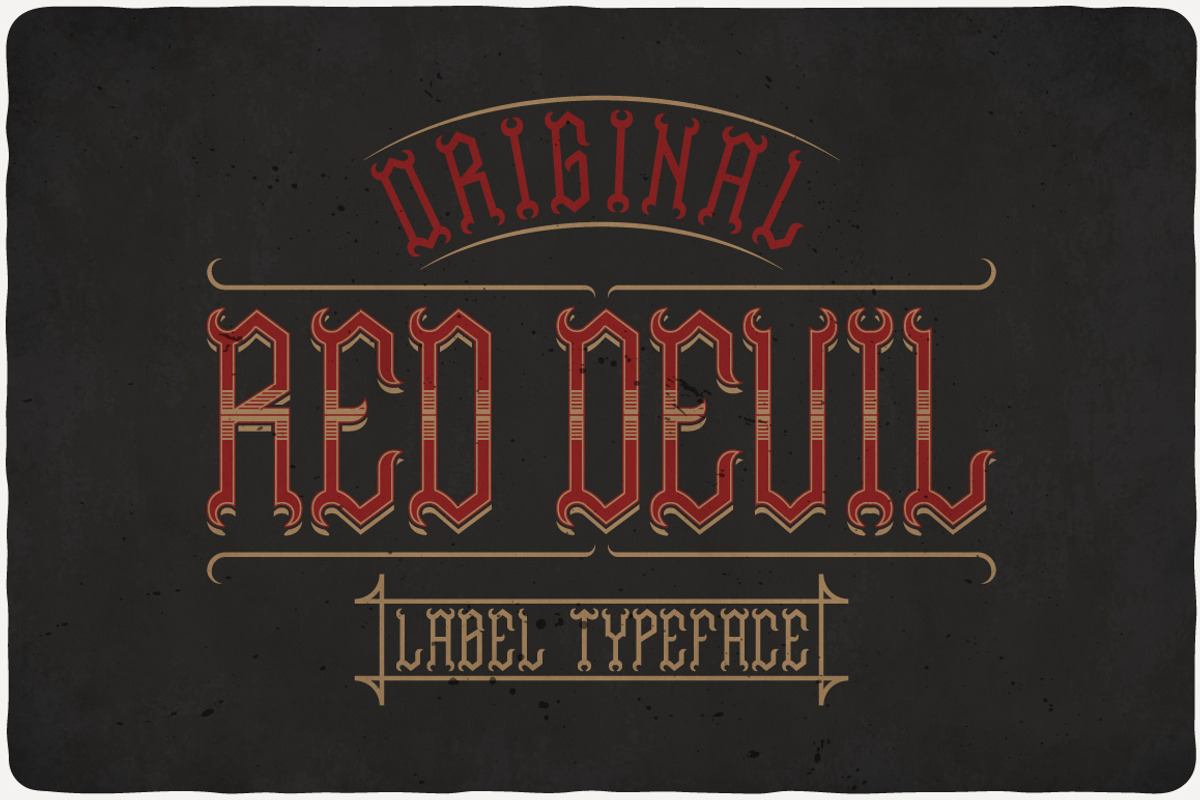
Red Devil Typeface Free Download is a bold and daring display typeface designed to make a statement. With its sharp, aggressive lines and dramatic contrast, this font is perfect for designs that need a strong, powerful impact, such as posters, event promotions, gaming graphics, and edgy branding.
The font's unique, angular design gives it a fierce, rebellious vibe, ideal for projects that want to evoke intensity, power, and boldness. Whether you're designing for a rock band, a horror-themed event, or an urban brand, Red Devil adds attitude and strength to your typography.